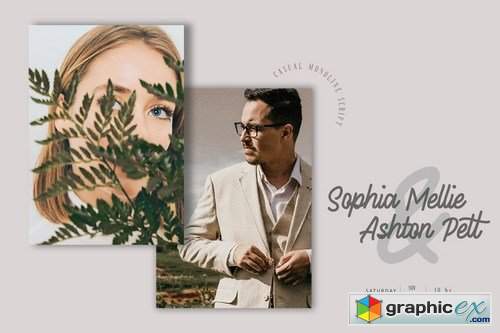
Dream Cream - Casual Monoline Script
Dream Cream - Casual and beauty Handwritten Monoline Script - Fancy Signature Font
The unique flow and easy handwritten style makes it perfect for wedding design, social media, feminine branding, greting cards, modern invitation design, Photography branding, stationery design, blog design, modern advertising design, wedding invitation, Art Quote, Home decor, Book/Cover Title, Invitation, special events, birthday, custom mug, pillow, t-shirts, and any signature font needs and more or simply use it in your next design project.